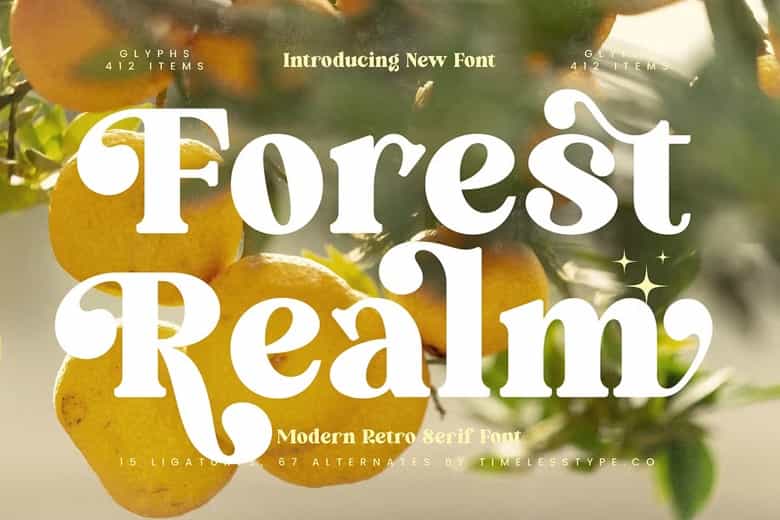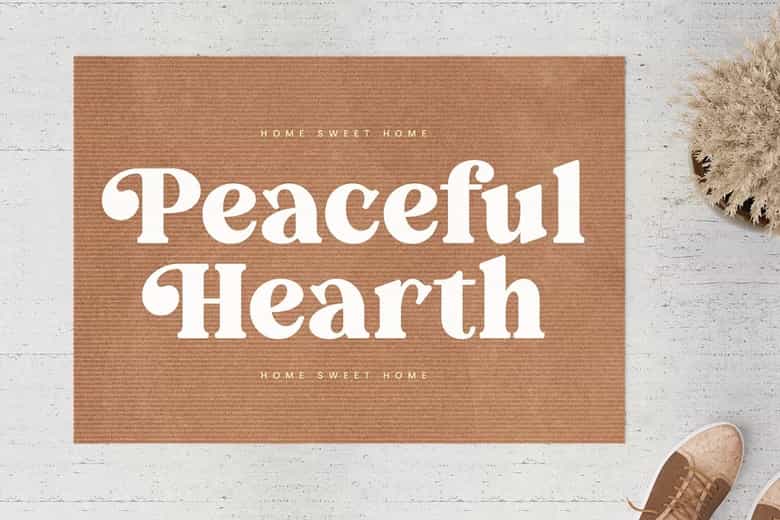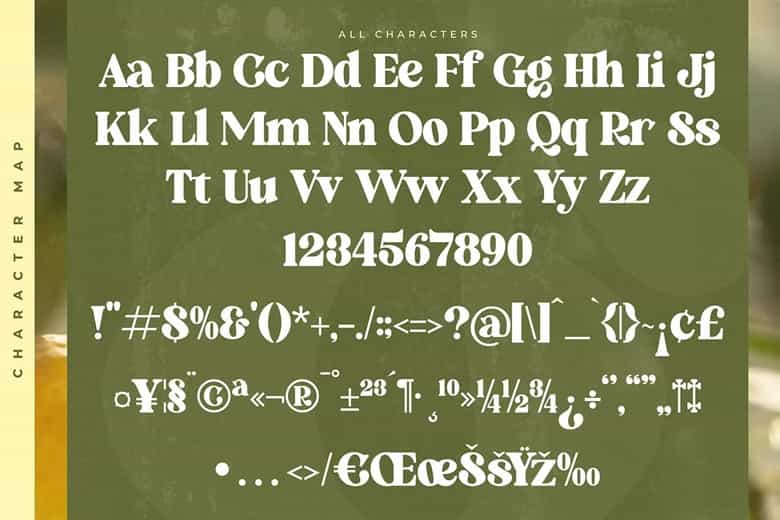
Forest Realm is a new modern retro serif font, from Timelesstype.Co, It’s suitable for any projects such as: logos, branding projects, homeware designs, product packaging, mugs, quotes, posters, shopping bags, t-shirts, book covers, name card, invitation cards, greeting cards, label, special events, photography and all your other luxury and beauty projects.